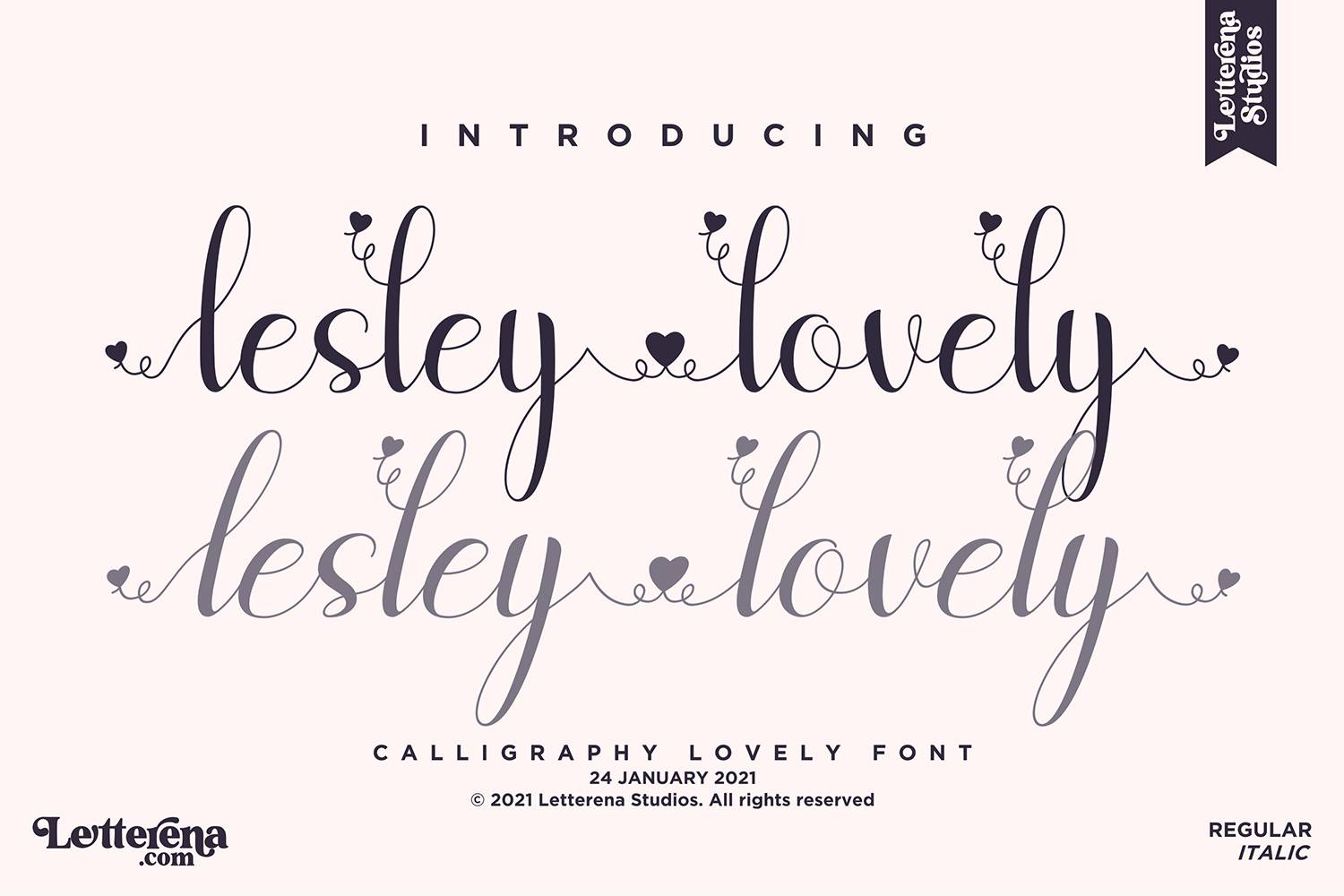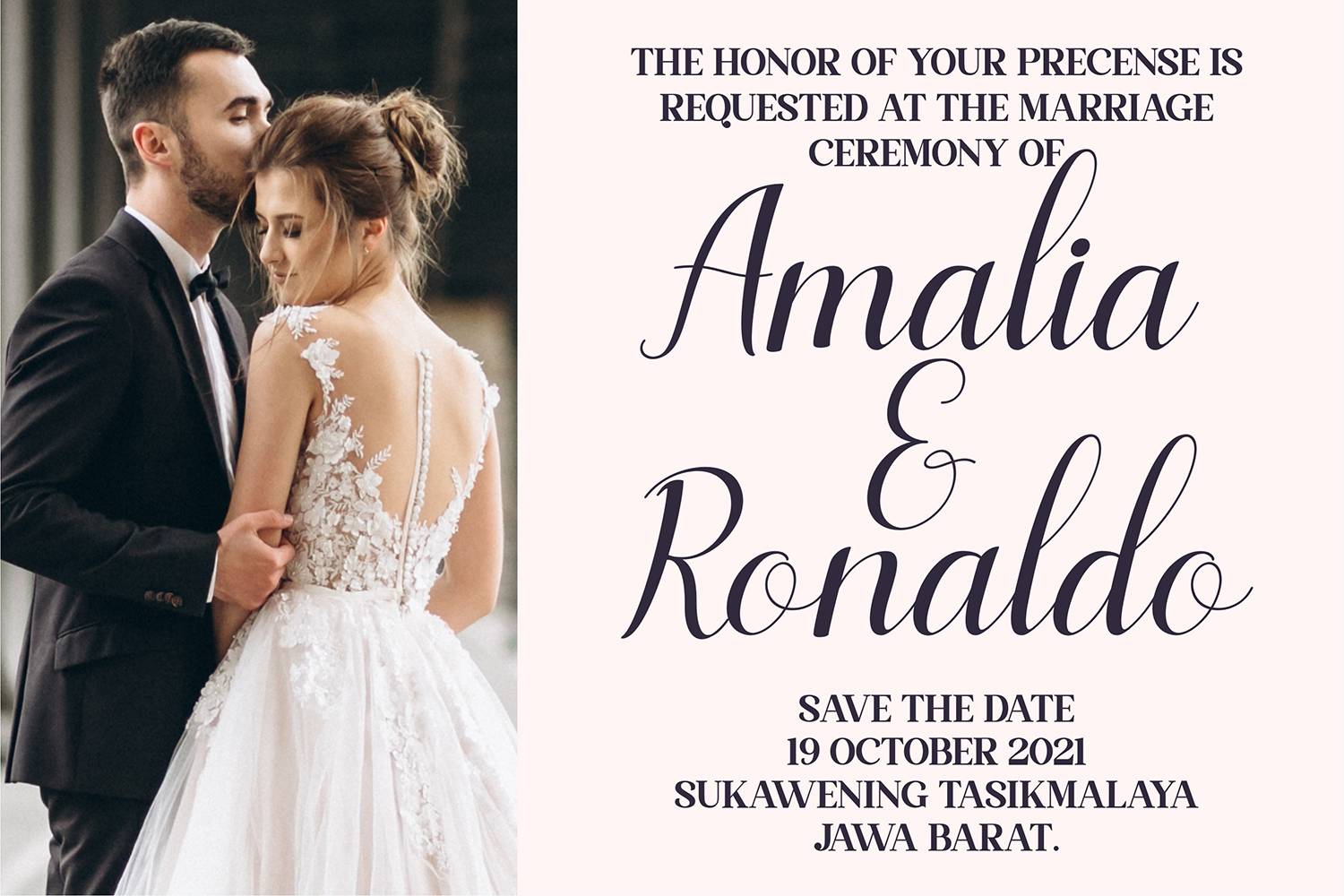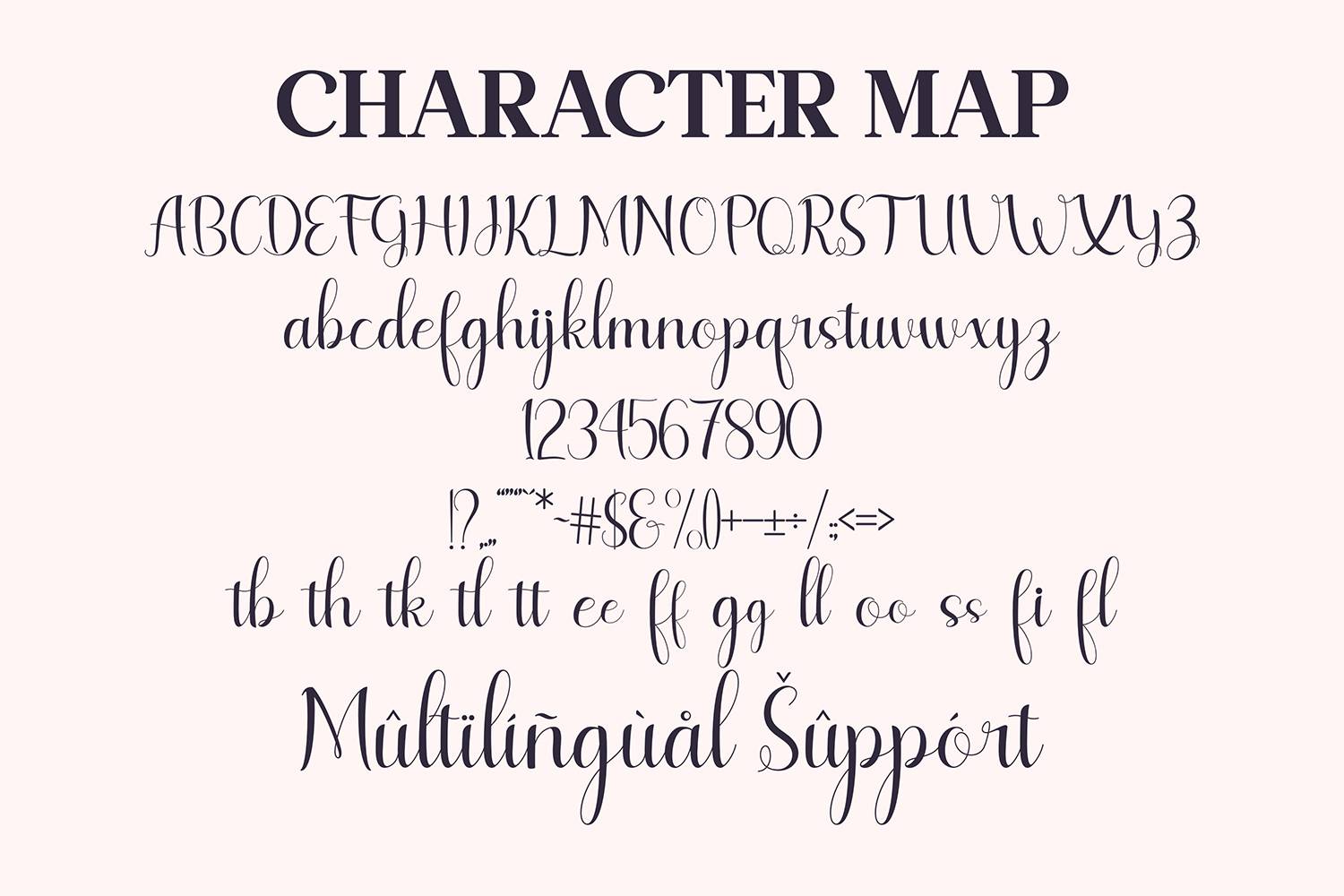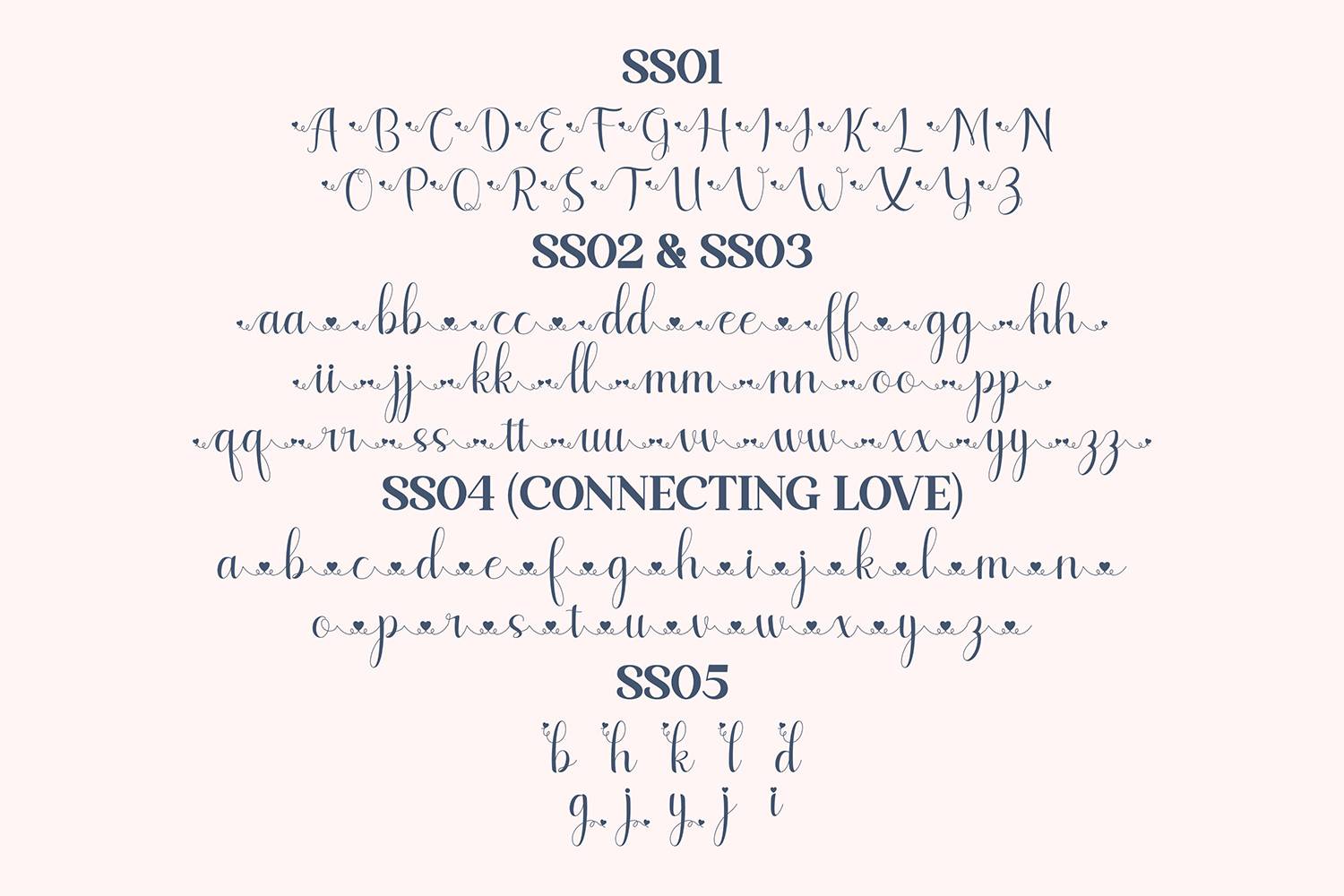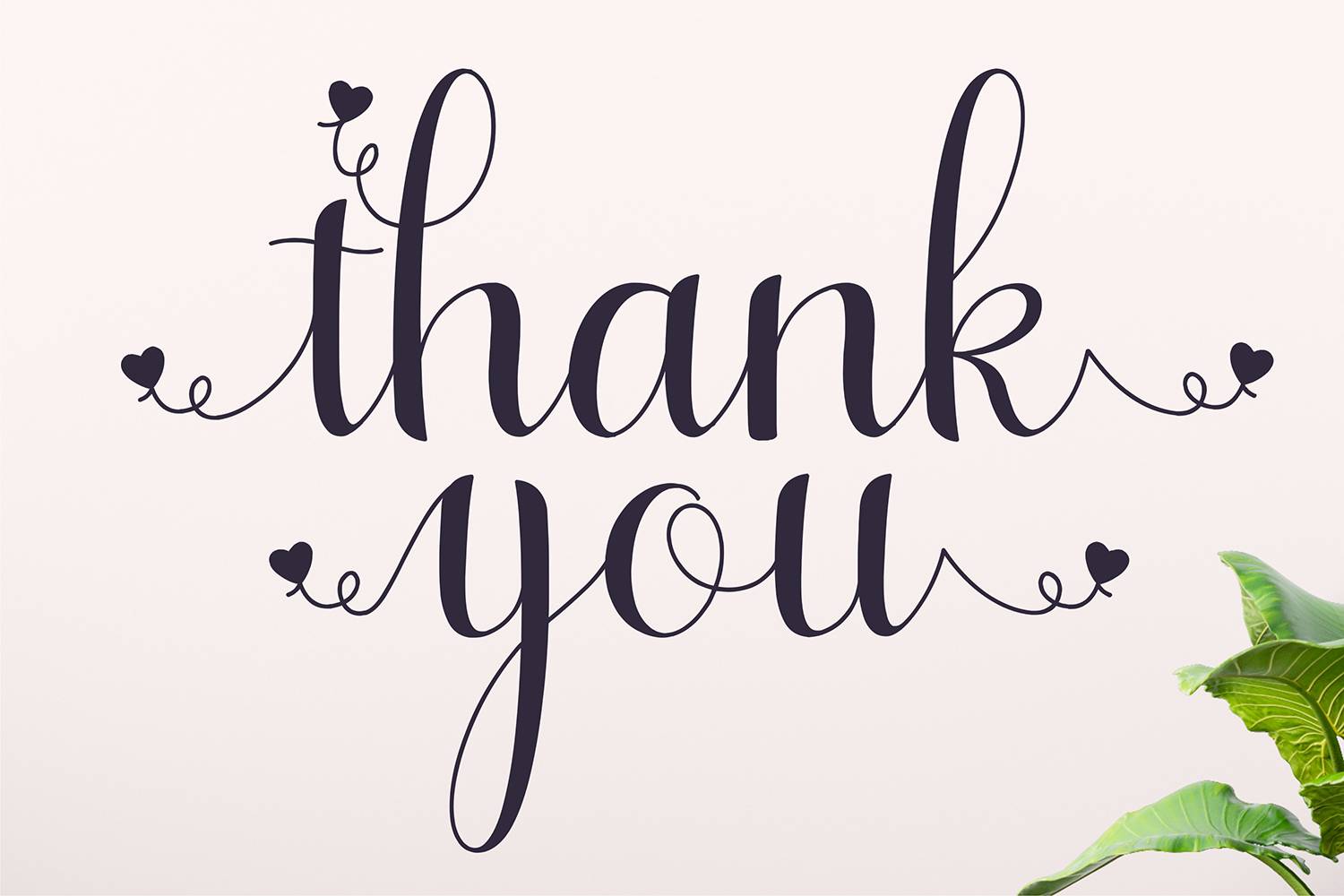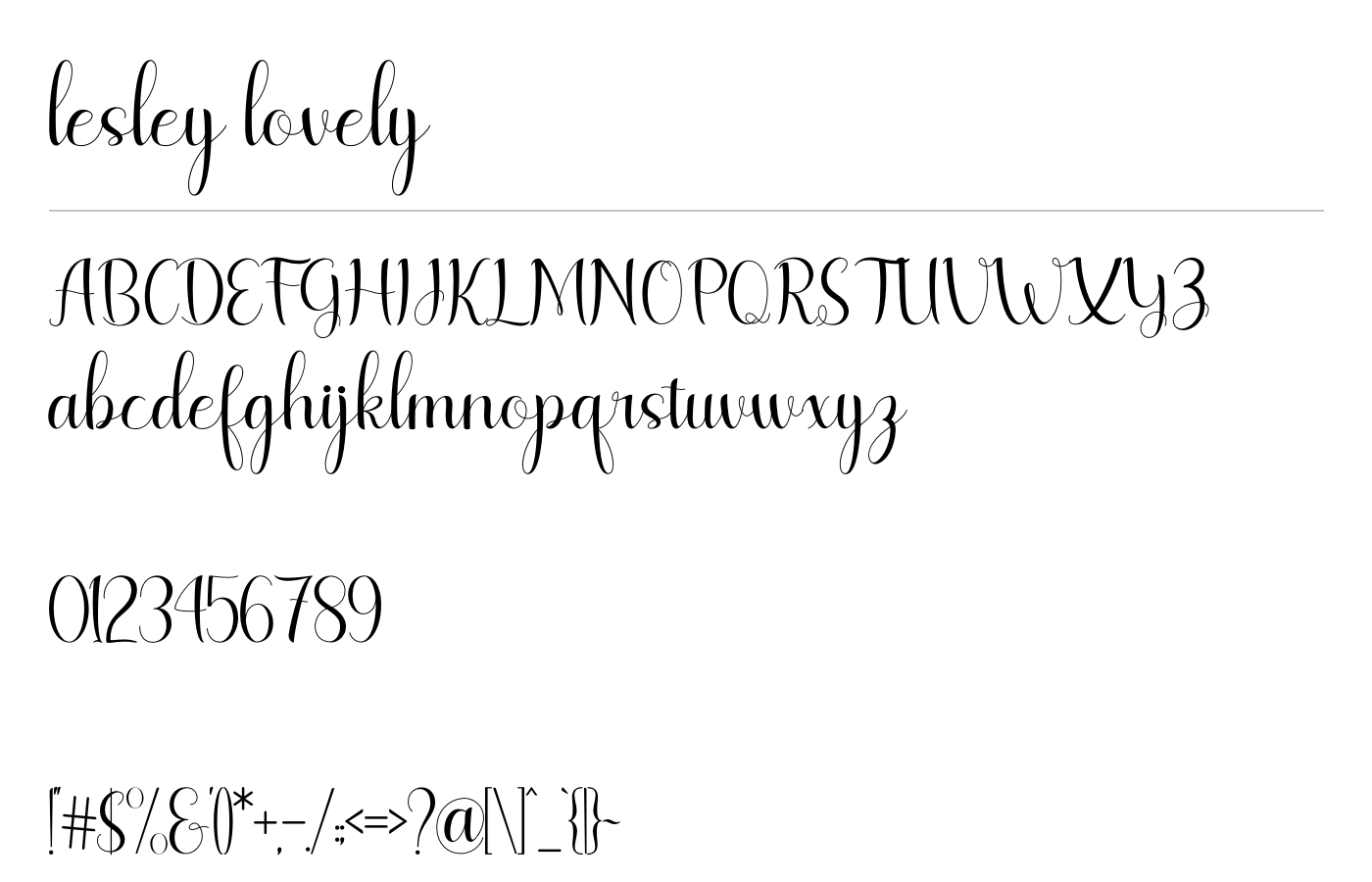
Lesley Lovely is an elegant script font characterized by its tall, slender letterforms and flowing, delicate strokes that combine both single and double-story shapes, lending a graceful and feminine feel. Its light weight and refined curves make it perfect for romantic or stylish branding, invitations, and headlines where a sophisticated, charming touch is desired. This font works well in designs that seek a blend of modern elegance and playful flair, ideal for fashion, beauty, and luxury-themed projects.
Lesley Lovely Font
About Lesley Lovely Font
| Font family | Lesley Lovely Font |